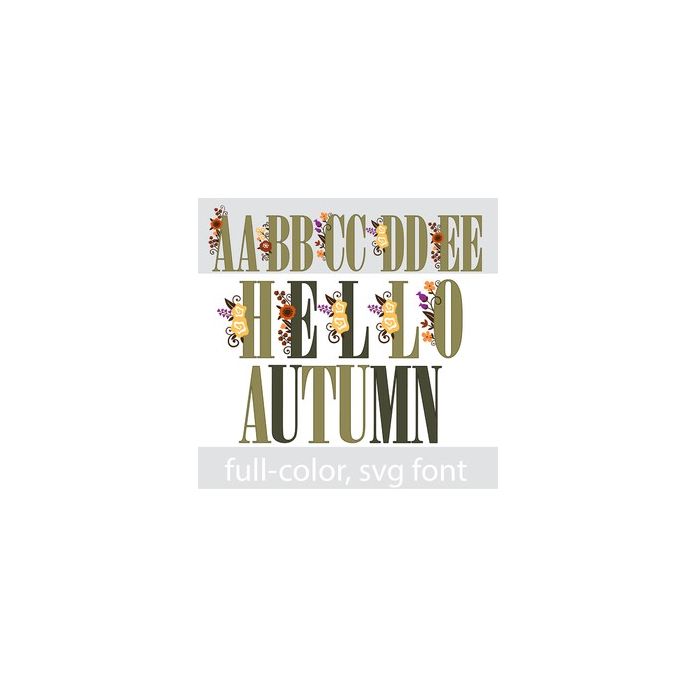
This full-color font features a pretty serif font with fall florals along one side of the uppercase. There is an alt case w/ additional colors you can access through your system or Silhouette's glyph map.